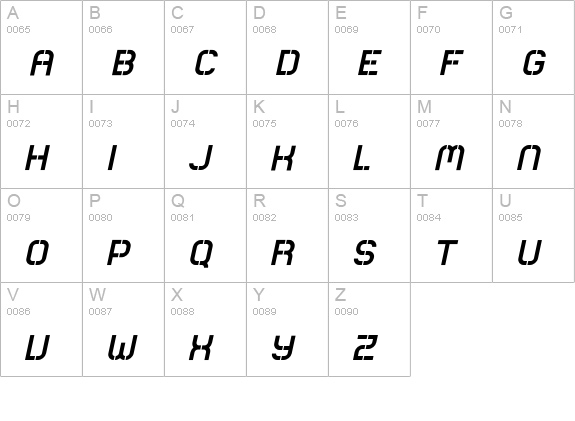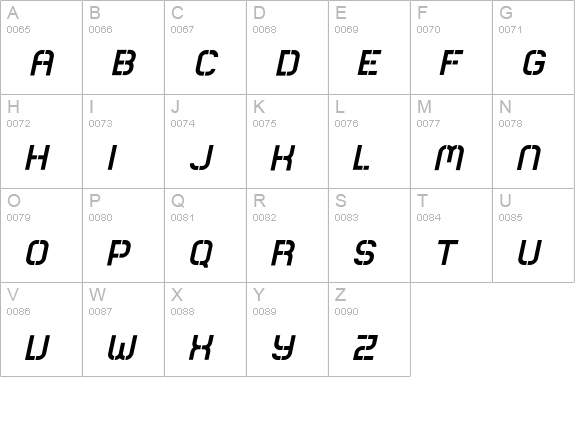
Comsat-BoxItalic Font Details
Comsat-BoxItalic font is a sleek and modern typeface that exudes sophistication and creativity. Its italicized design adds a touch of elegance to any project, making it perfect for branding, advertising, and editorial purposes. The unique box-like structure of the letters gives this font a distinct and eye-catching appearance, setting it apart from more traditional styles. Best of all, Comsat-BoxItalic is available for free download at FontsMarket.com. This means you can easily access this stylish font and incorporate it into your designs without any cost. Whether you're working on a personal project or a professional venture, Comsat-BoxItalic is a versatile font that will elevate your work and leave a lasting impression on your audience. Elevate your designs with Comsat-BoxItalic today and experience the creative possibilities that this beautiful font has to offer.